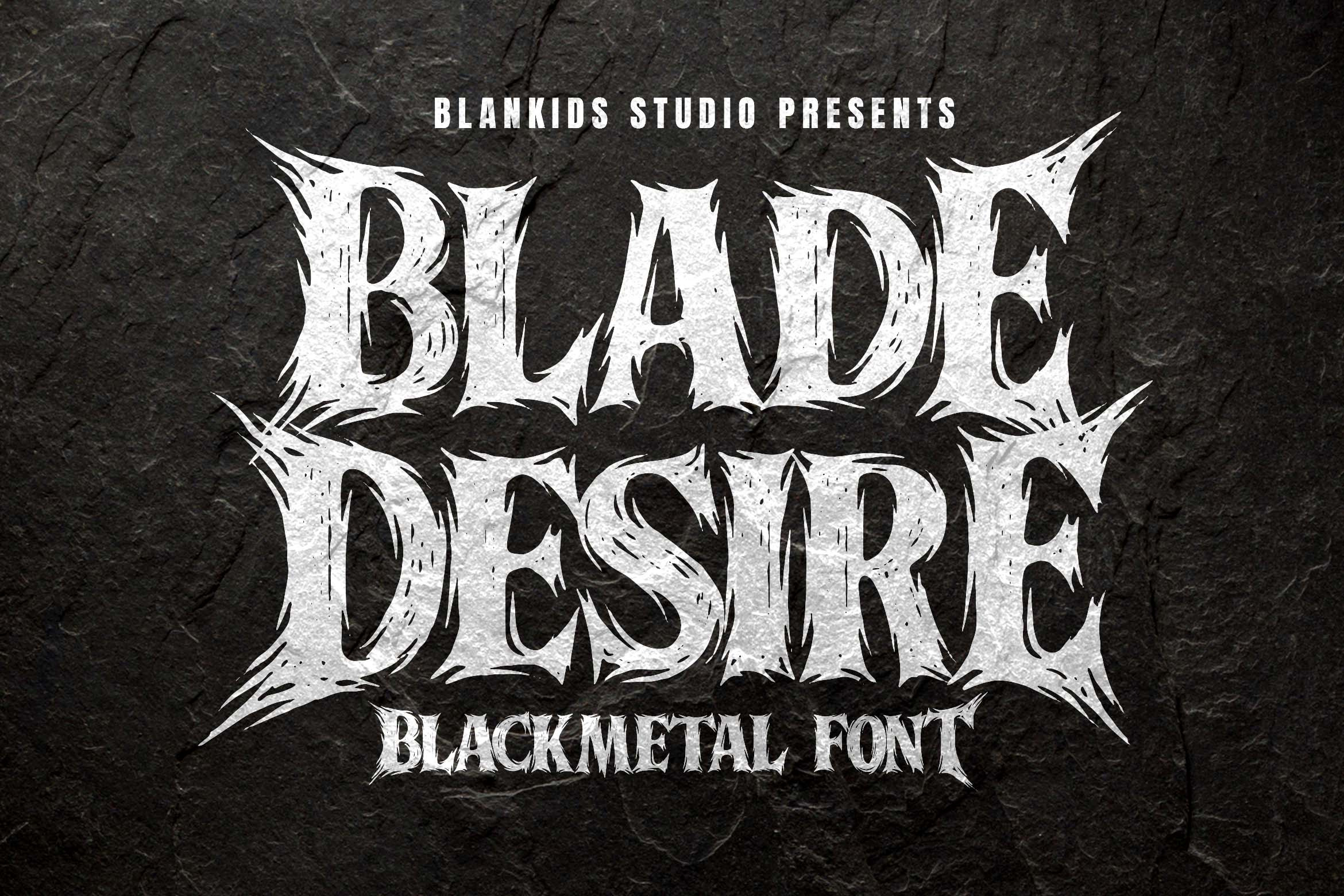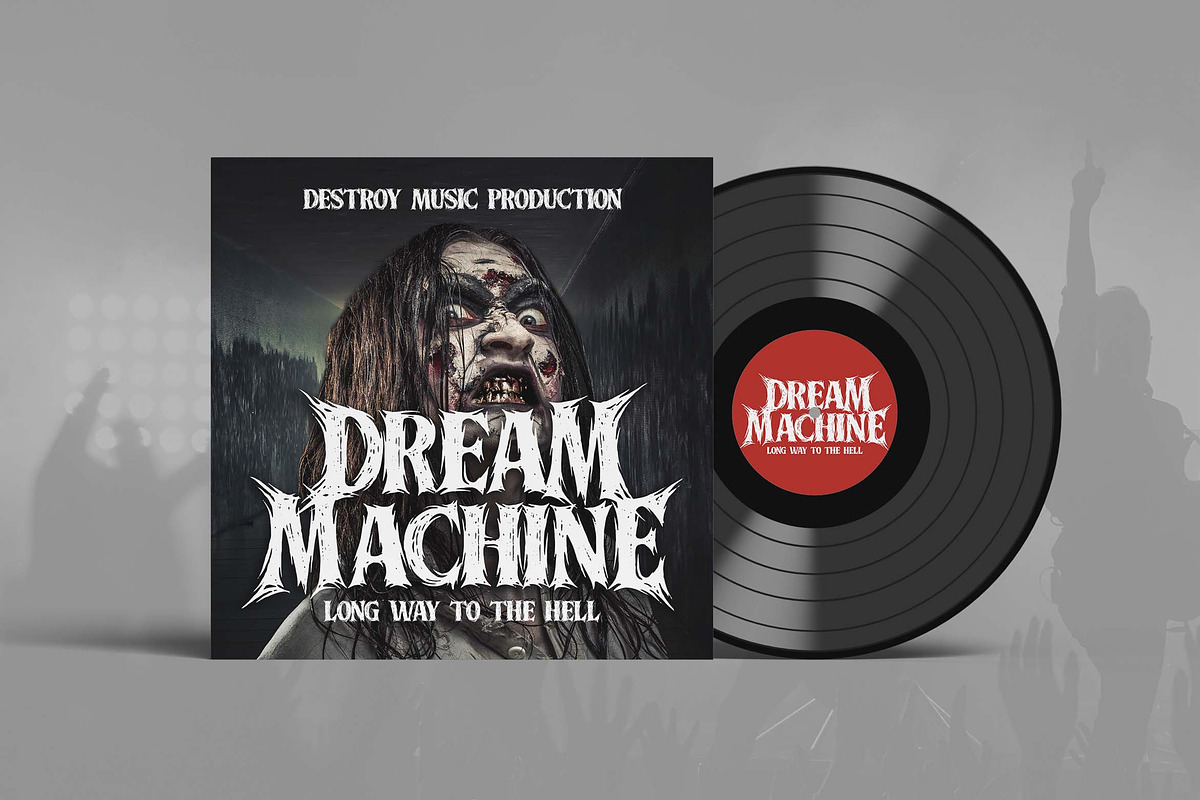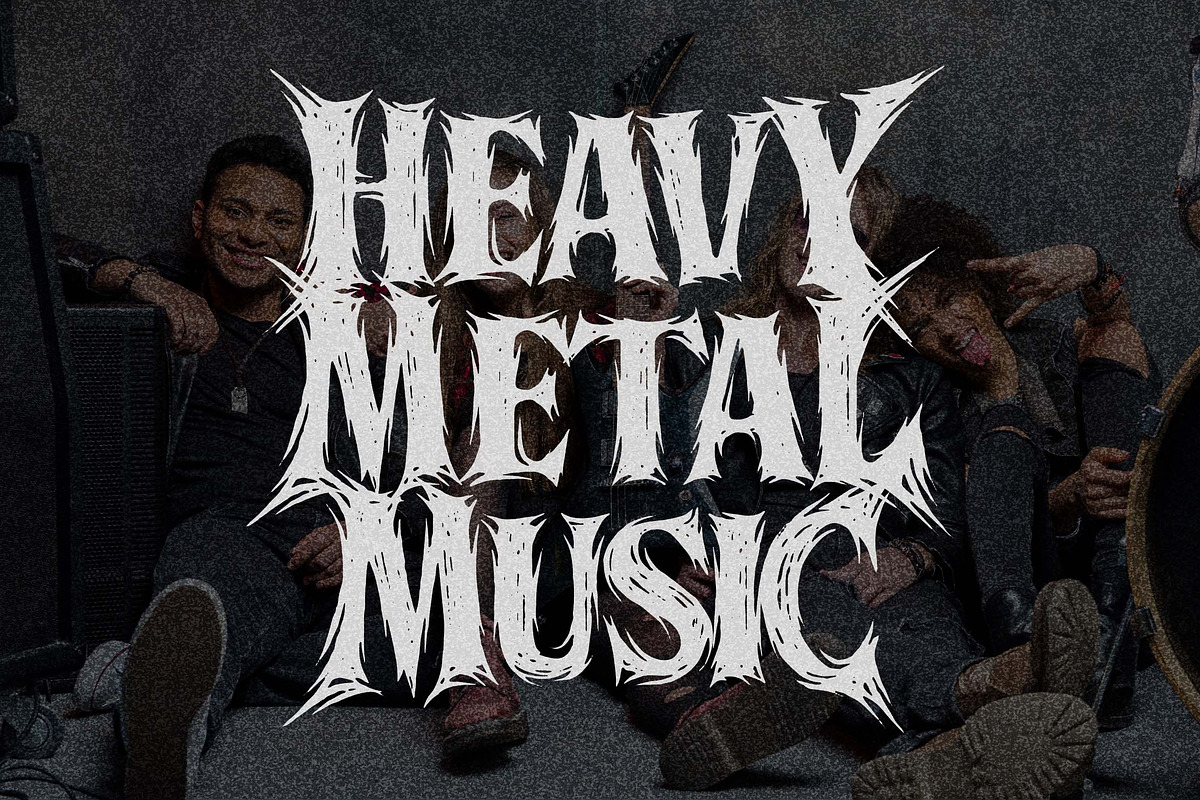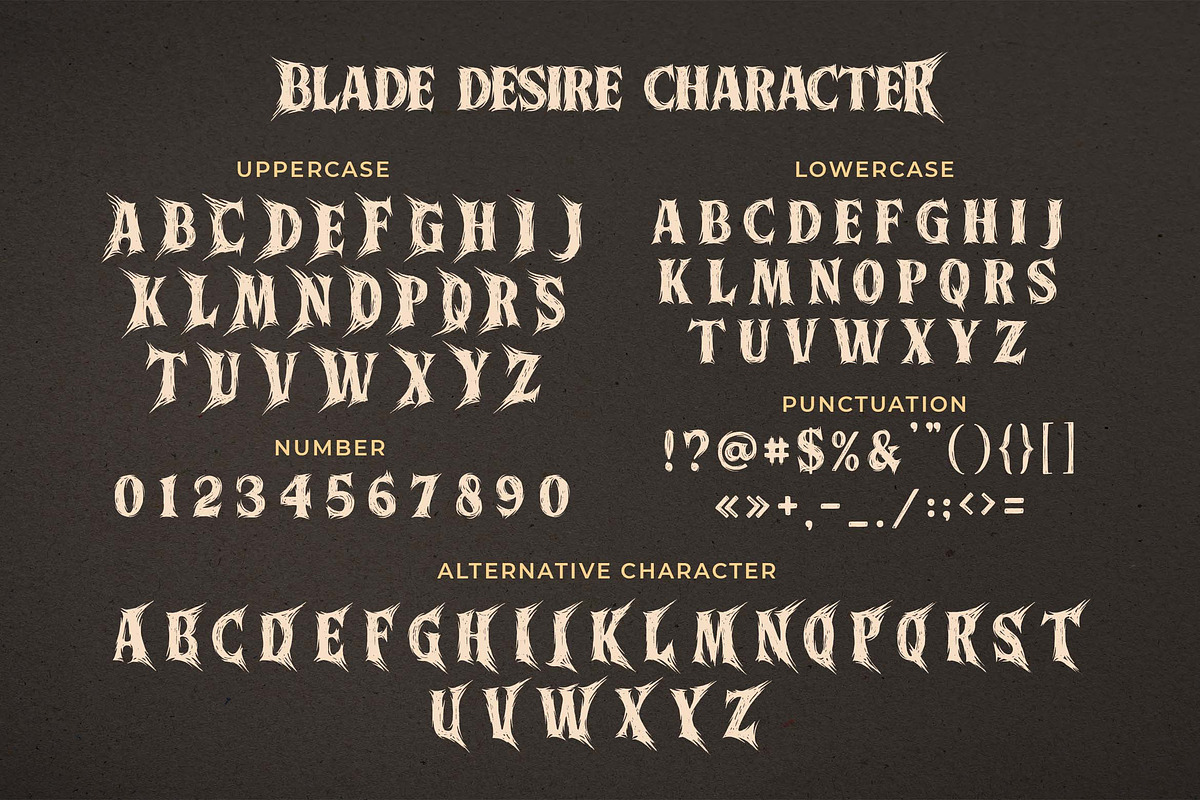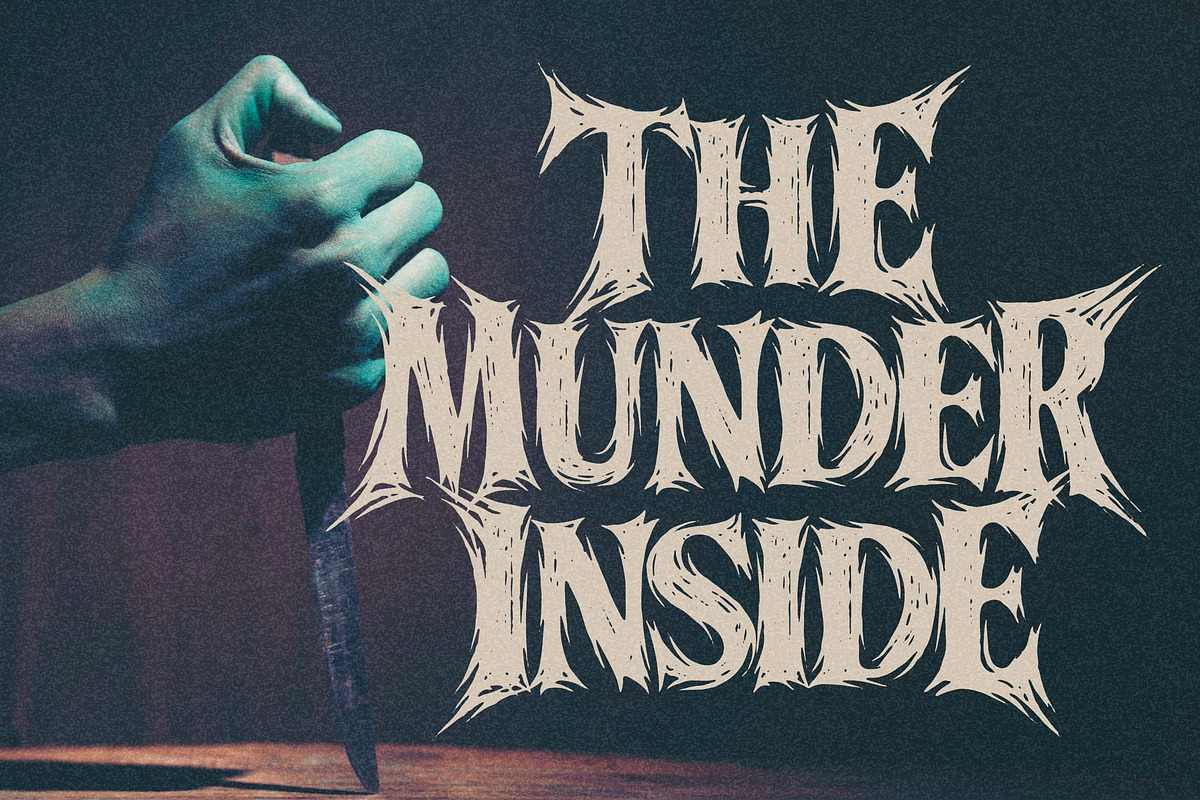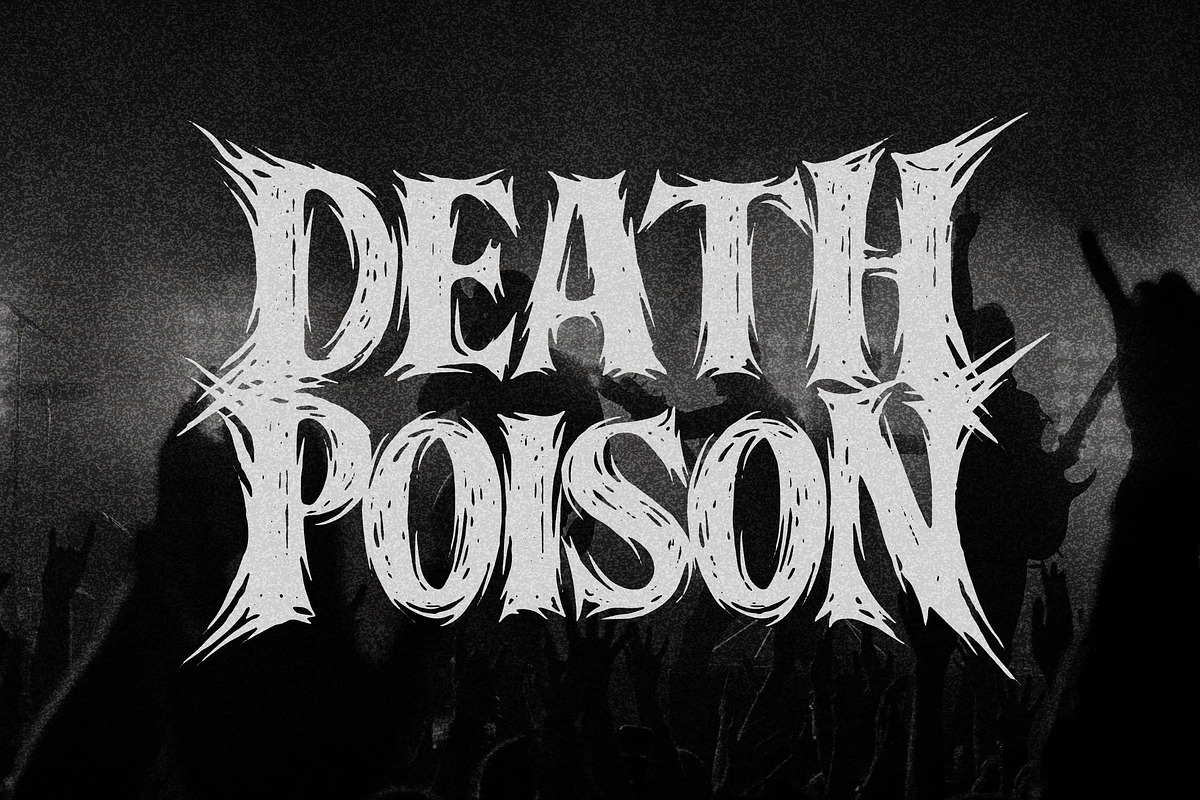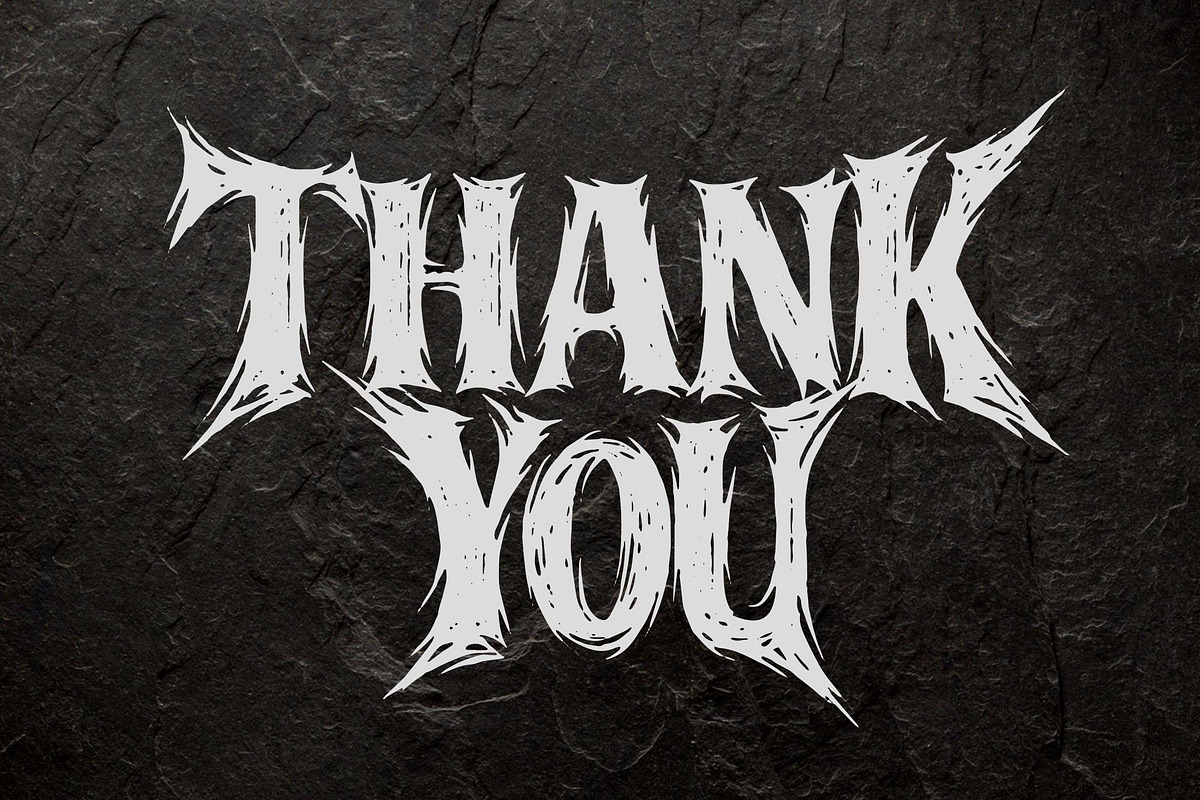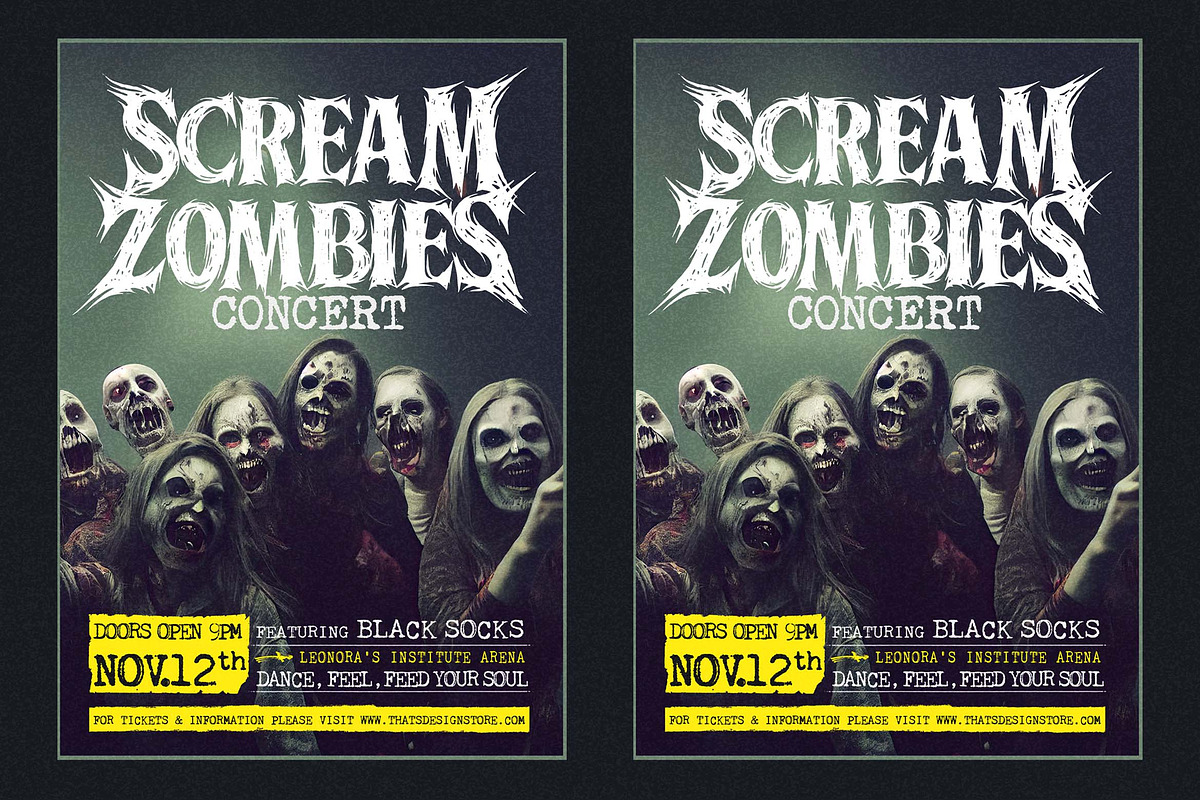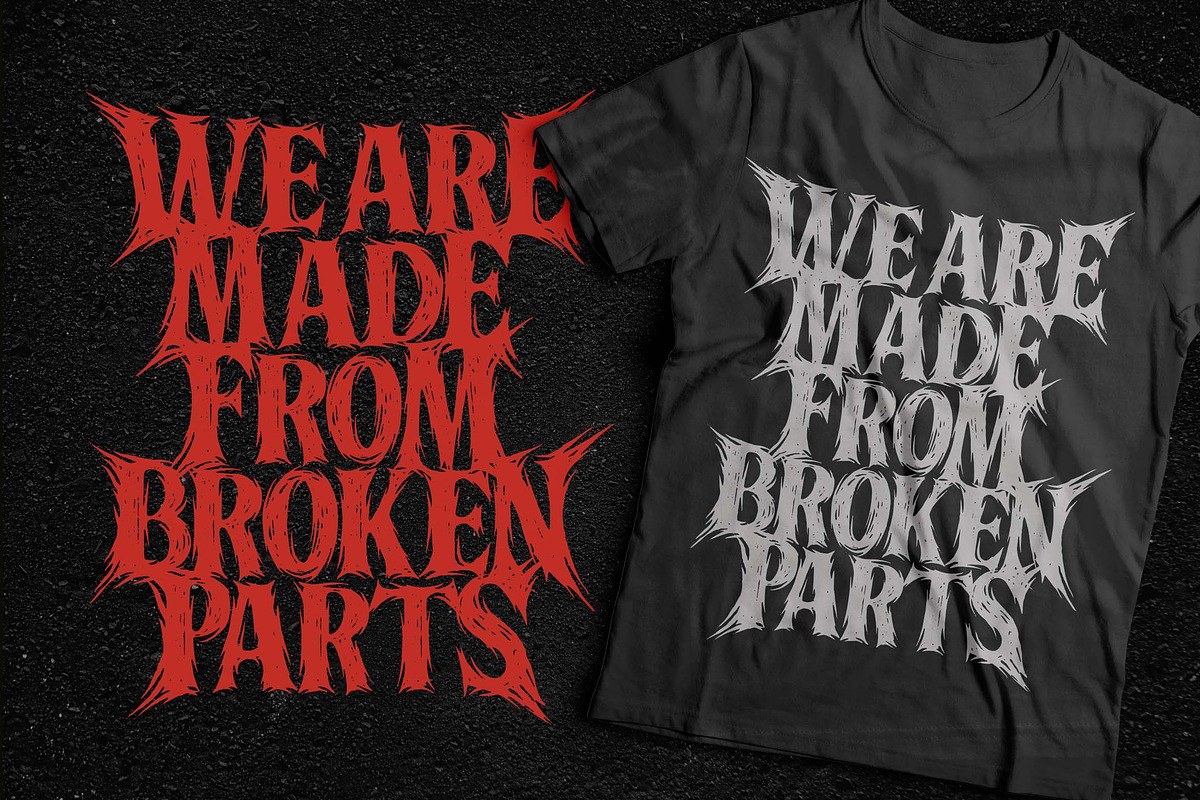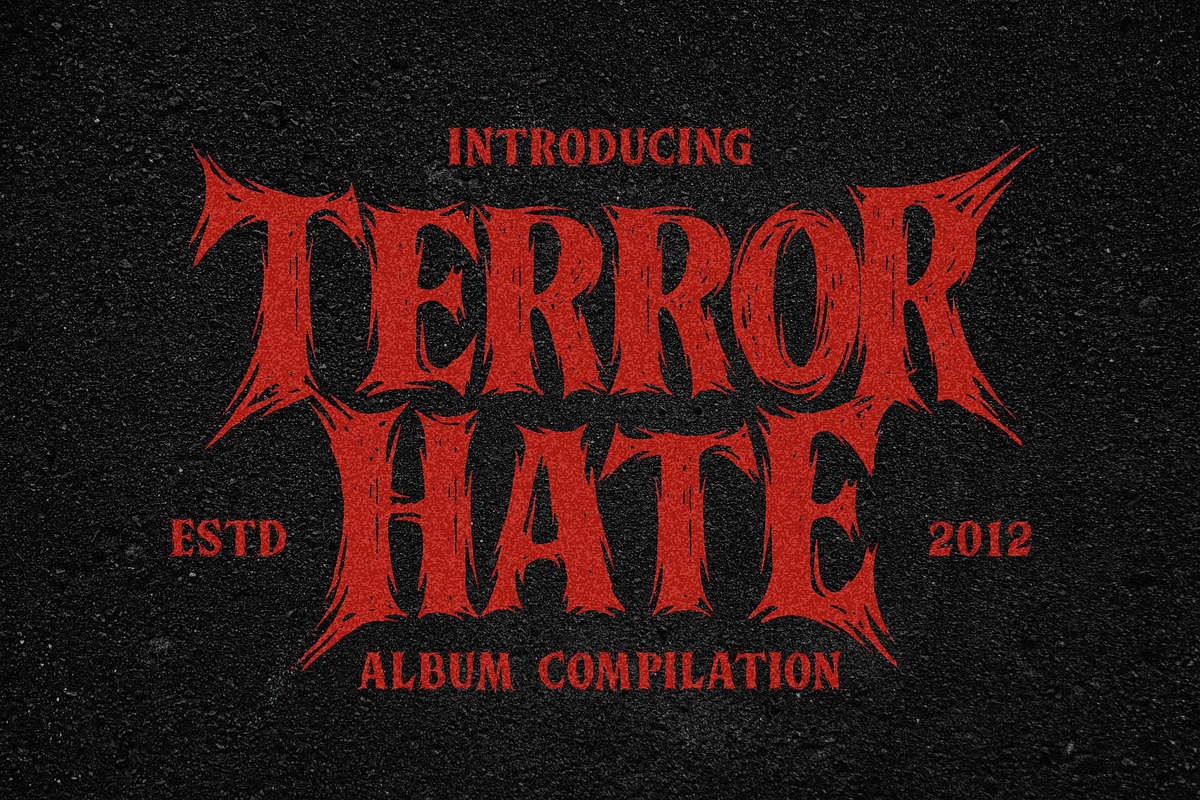
Blade Desire a Blackmetal Font
Blade Desire, a blackmetal font, this font made for any professional project with a metal music theme, such as logotype band, watermarks, album cover, poster band, tshirt band, promotions, product packaging, etc. Every letter has a sharp and rock touch.
Blade Desire font includes a full set of uppercase and lowercase letters, numerals, punctuation, and alternative character.